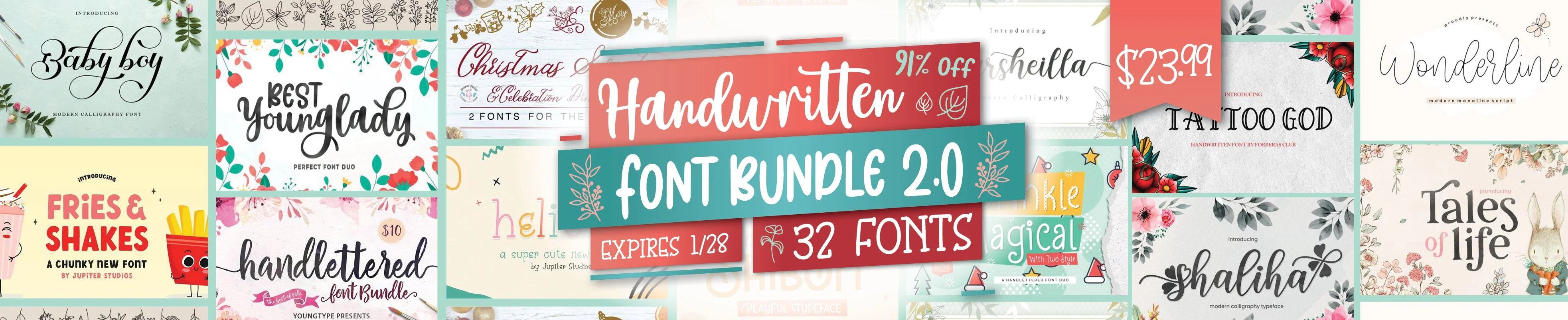
Handwritten Font 2.0
Everything you need in a font bundle! The limited time Handwritten Font Bundle is a whopping 91% off! 32 of our best handwritten fonts including handwritten script fonts and trendy fonts with glyphs! As always our font bundles are for commercial use and work well as fonts for Cricut, Silhouette, Scan N Cut and in other graphic design programs including Adobe Illustrator and Photoshop.